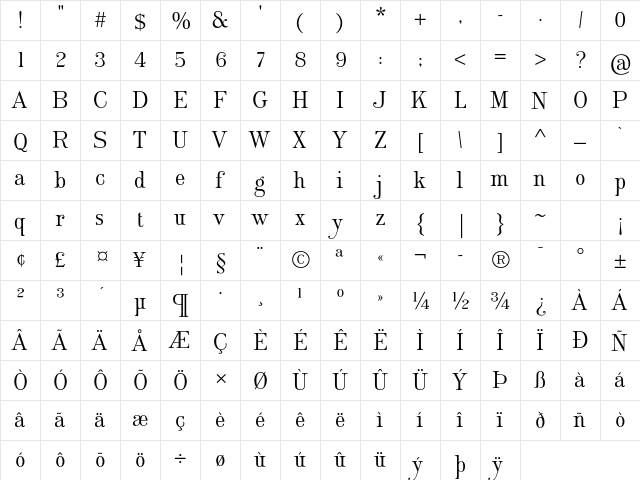
Burin Roman Std Regular
Design Context for Burin Roman Std Typeface
Burin Roman Std is a composed and adaptable typeface that performs quietly and consistently across a wide range of design contexts.